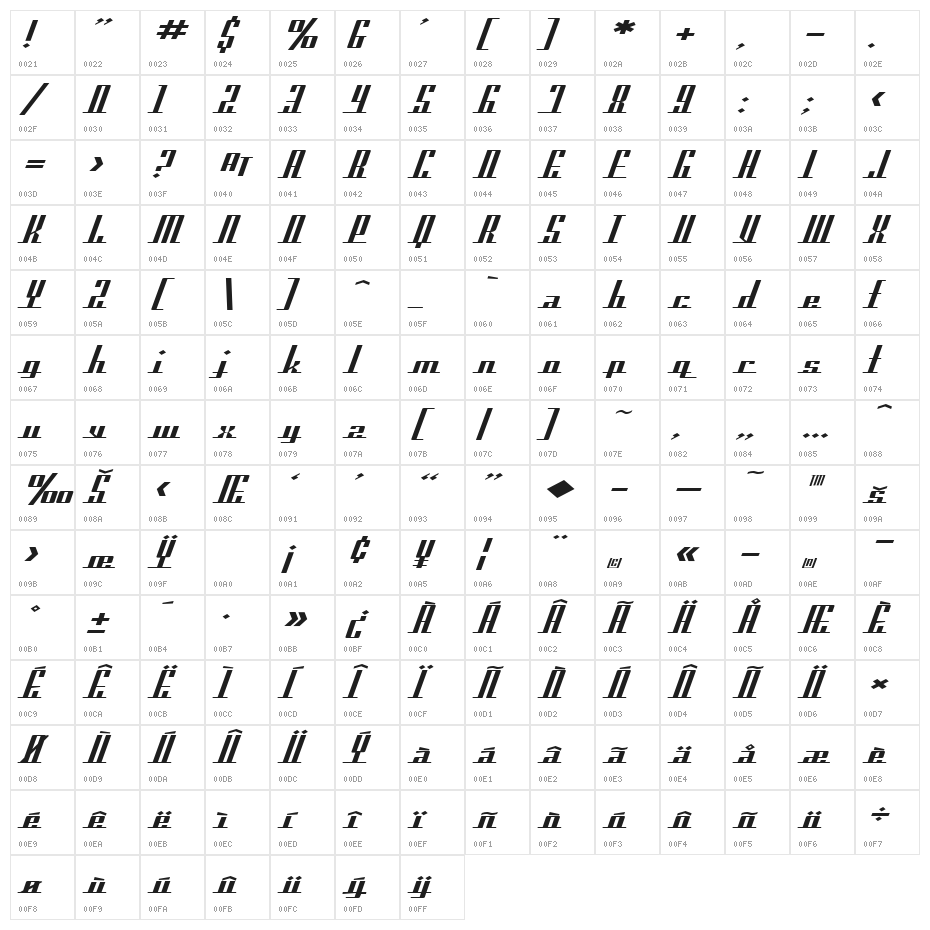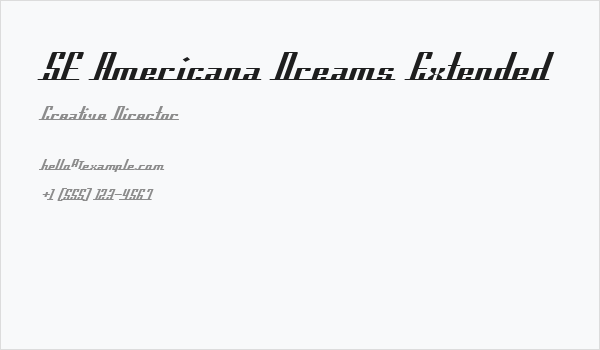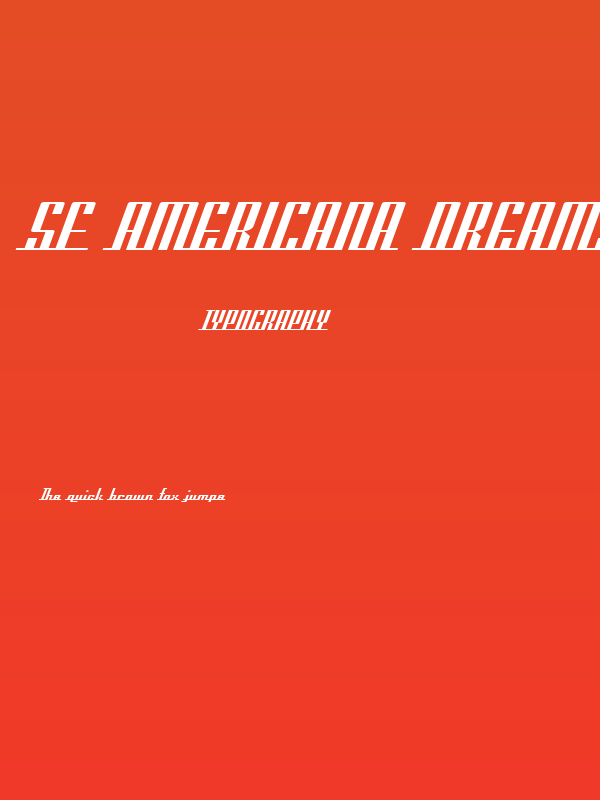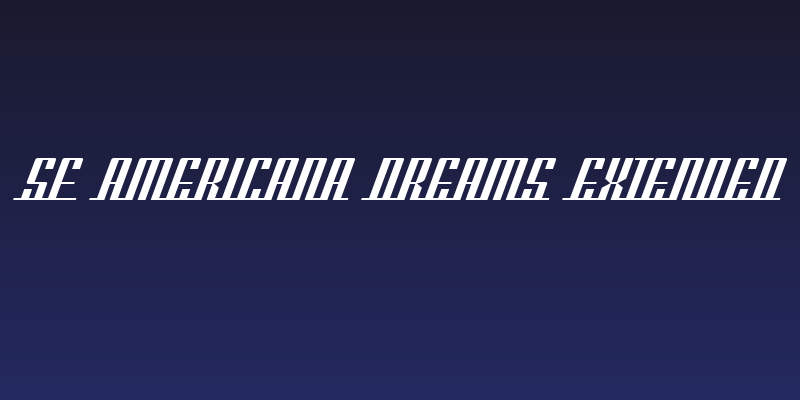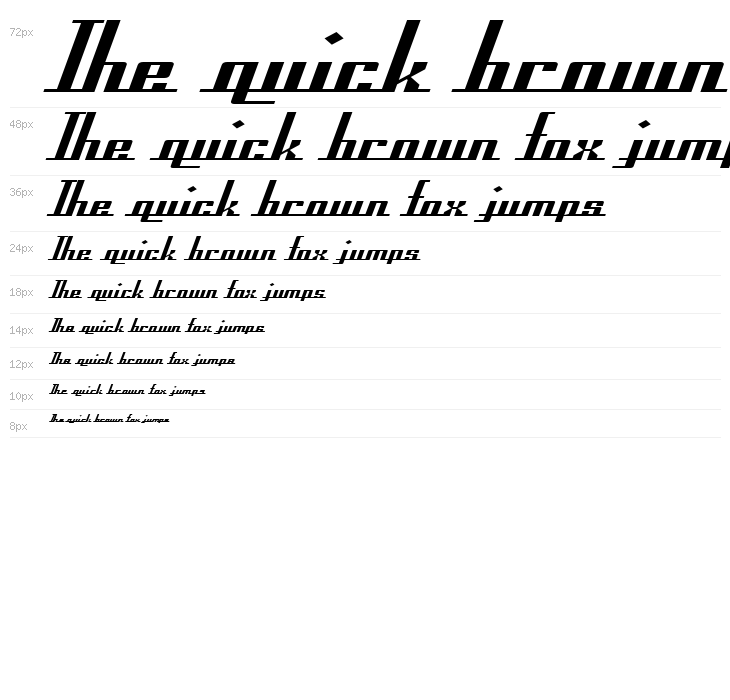
SF Americana Dreams Extended Font
SF Americana Dreams Extended Description
This font features a bold, angular design with a distinct slant, giving it a dynamic and modern appearance. The characters are elongated and condensed, creating a sleek and streamlined look. The uppercase letters have sharp, geometric edges, while the lowercase letters maintain a similar style with slightly softer curves. The numerals and special characters follow the same angular and slanted design, ensuring consistency across all elements. The overall style is reminiscent of retro-futuristic aesthetics, making it suitable for projects that require a bold and eye-catching typeface.
| Proposed Projects | Ideal for branding, posters, album covers, and any design needing a striking, modern typeface. |